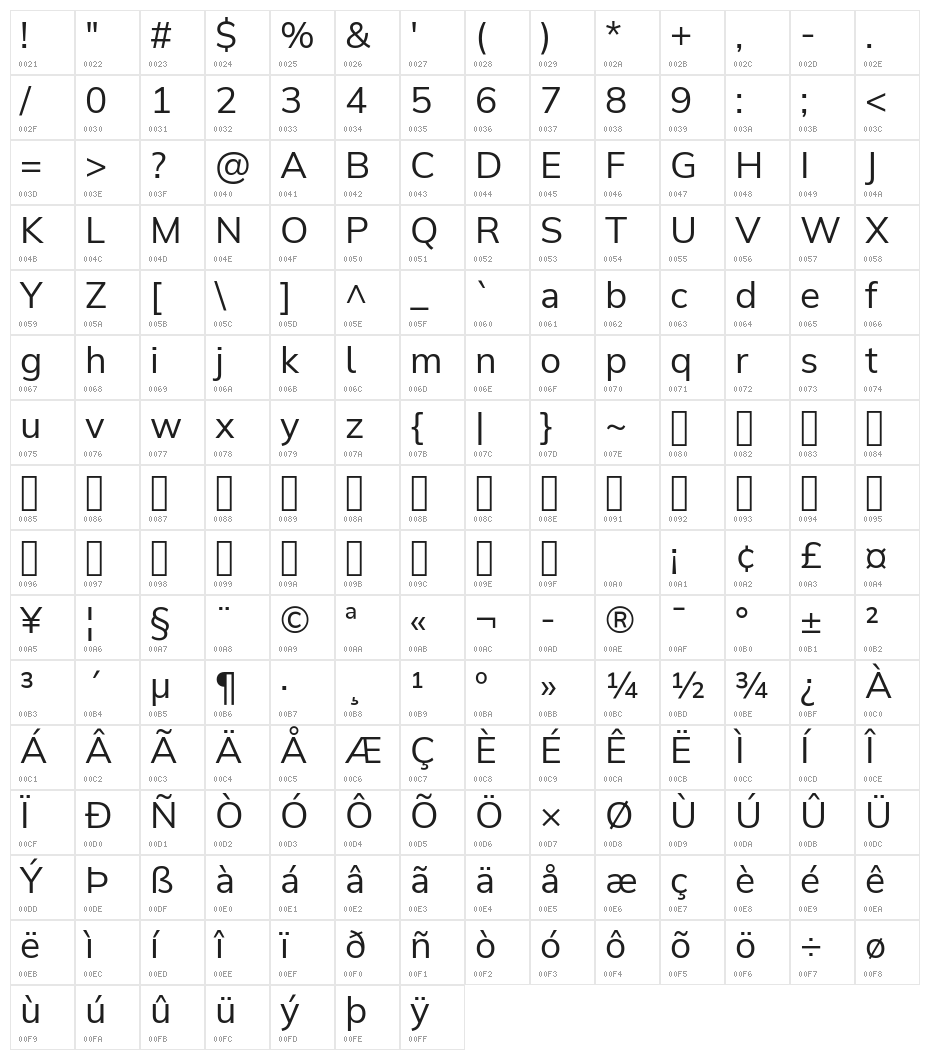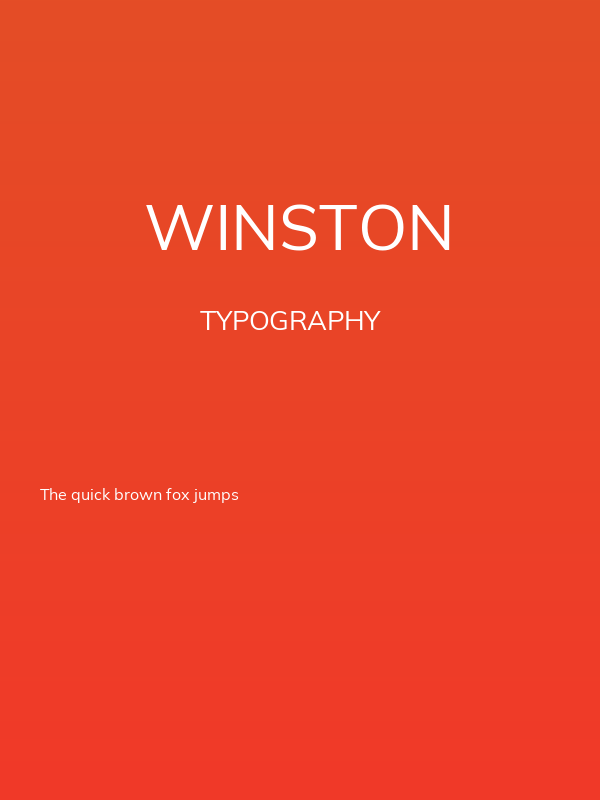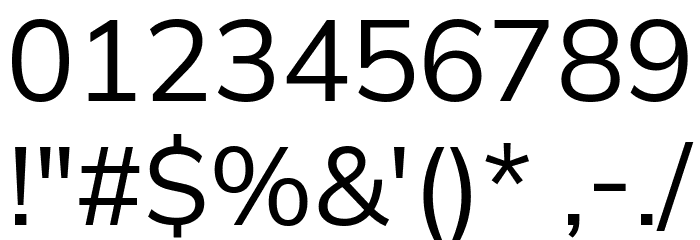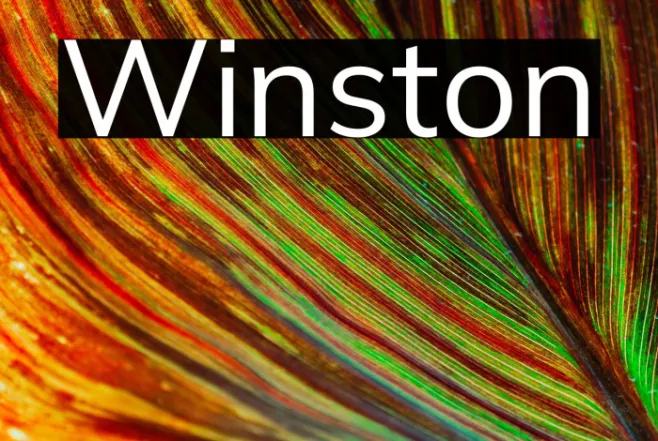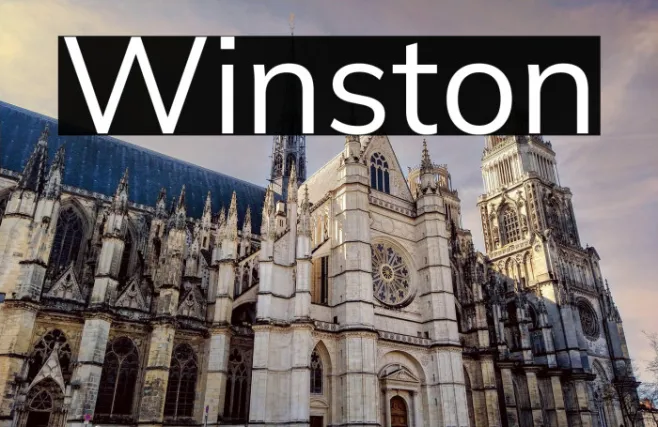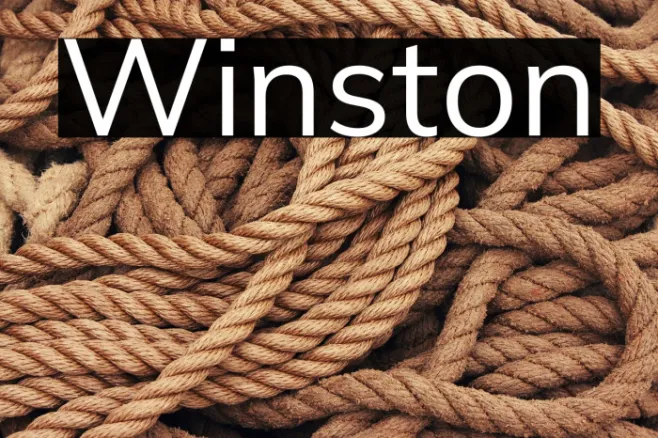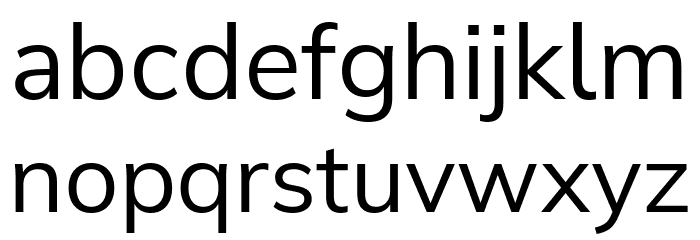
Winston Font
✎ Sans Serif
Winston Description
This font is a clean and modern sans-serif typeface characterized by its simplicity and readability. The letters are evenly spaced with a consistent stroke width, providing a balanced and harmonious appearance. The uppercase and lowercase letters are well-proportioned, making it suitable for both display and body text. The numerals are clear and distinct, ensuring legibility in various contexts. The special characters are designed to complement the overall style, maintaining the font's sleek and professional look.
| Use Case | Headlines, Body text, Logos |
| Proposed Projects | Ideal for corporate branding, web design, user interfaces, and editorial layouts. |